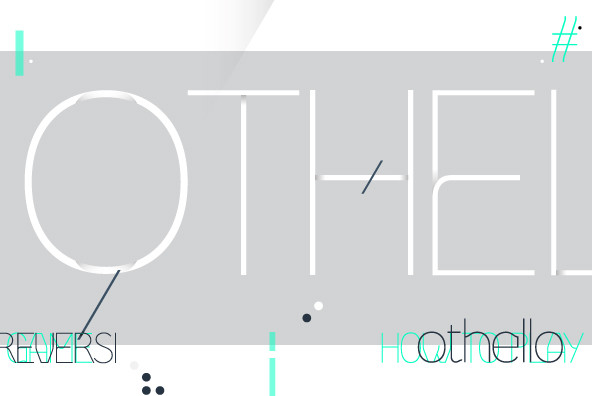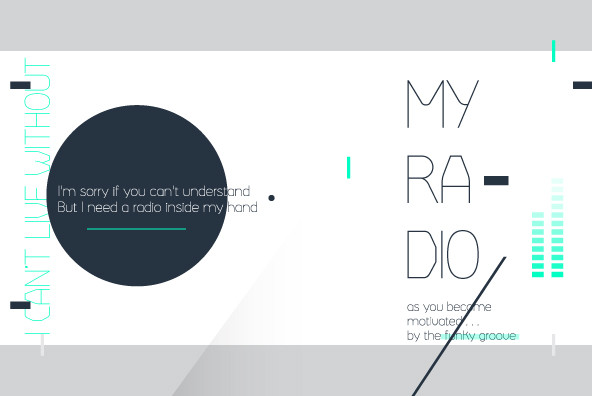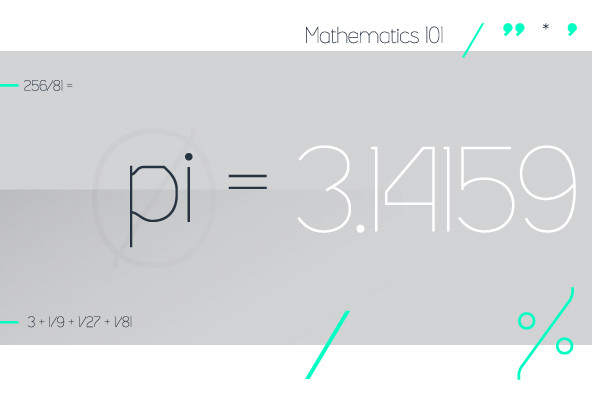
Foundry: Sudtipos
Lynda is a post-modern, monoline rounded sans ideal for club flyers, music covers and fashion publications. The fonts were designed by Ariel Di Lisio and digitized by Alejandro Paul.